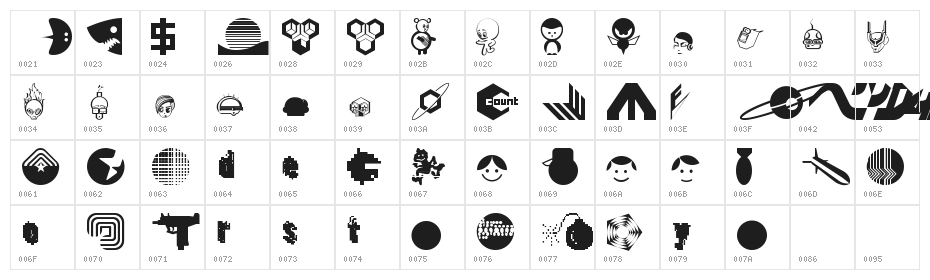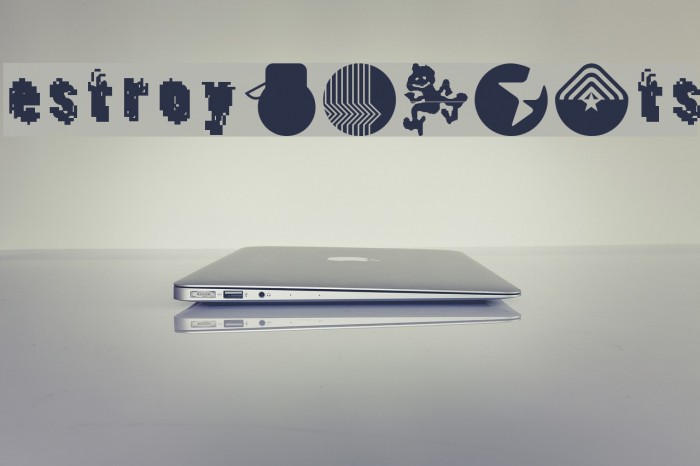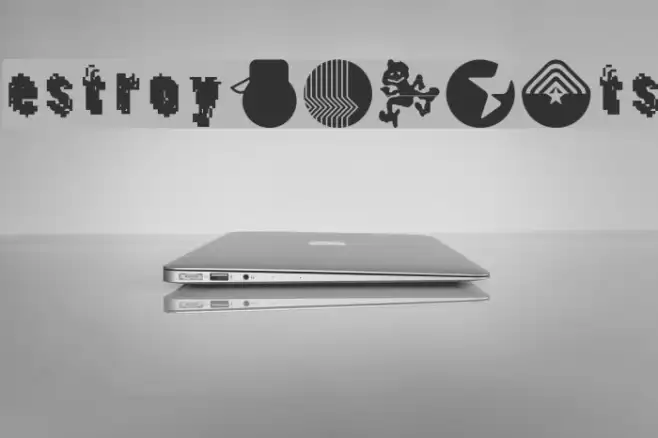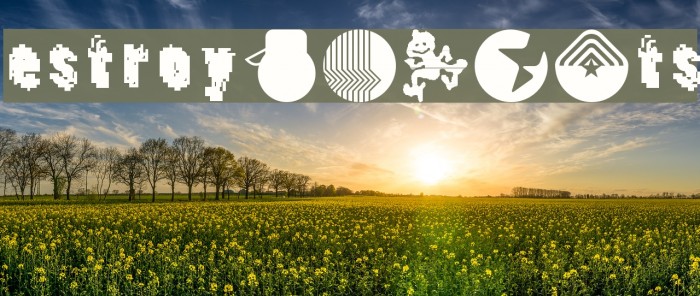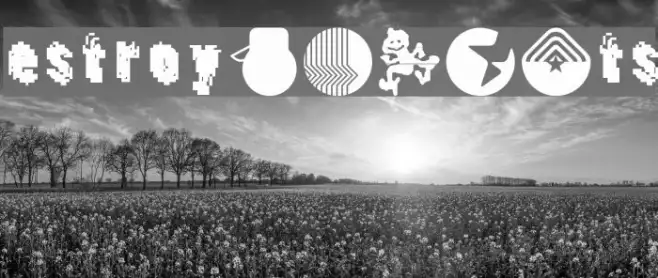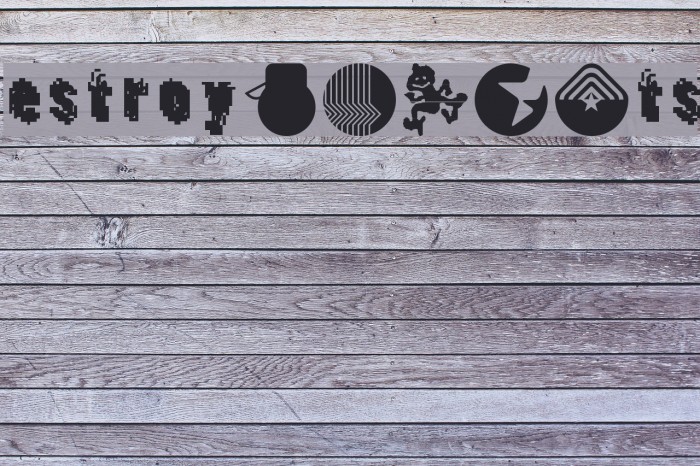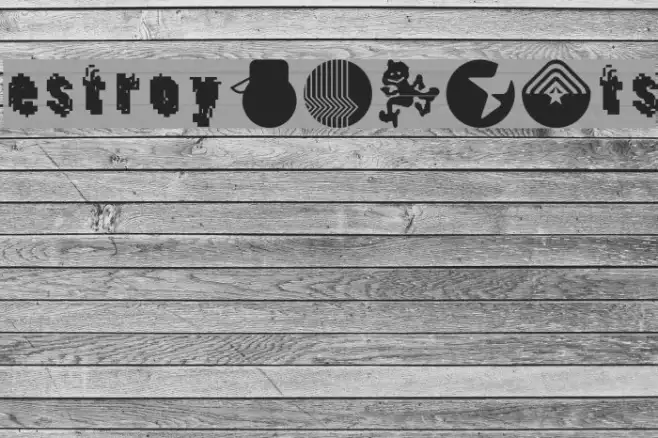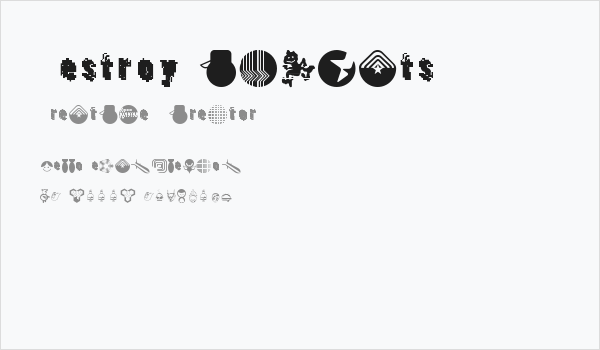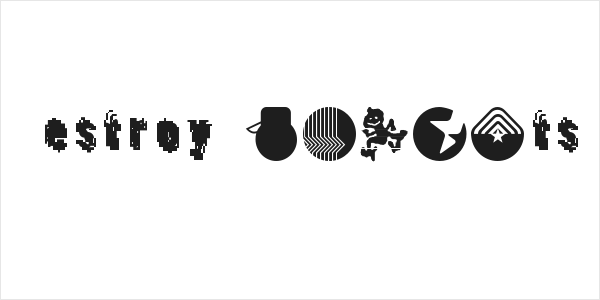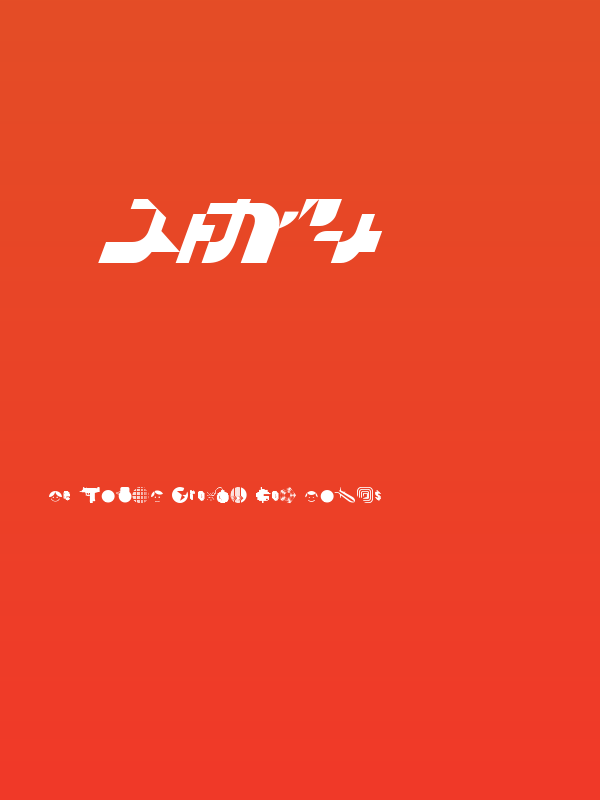
DestroyDingbats Font
DestroyDingbats Description
A highly decorative and eclectic dingbat font featuring a mix of abstract shapes, pixel art, cartoon faces, icons, and playful symbols. The glyphs are bold, varied in style, and include both geometric and illustrative elements, making each character unique and visually striking.
| Overall Style | Decorative, Playful, Modern |
| Use Case | Icons, Logos, Decorative elements, Posters |
| Proposed Projects | Posters, album covers, stickers, branding for creative industries, digital art, event flyers, and playful web design elements. |